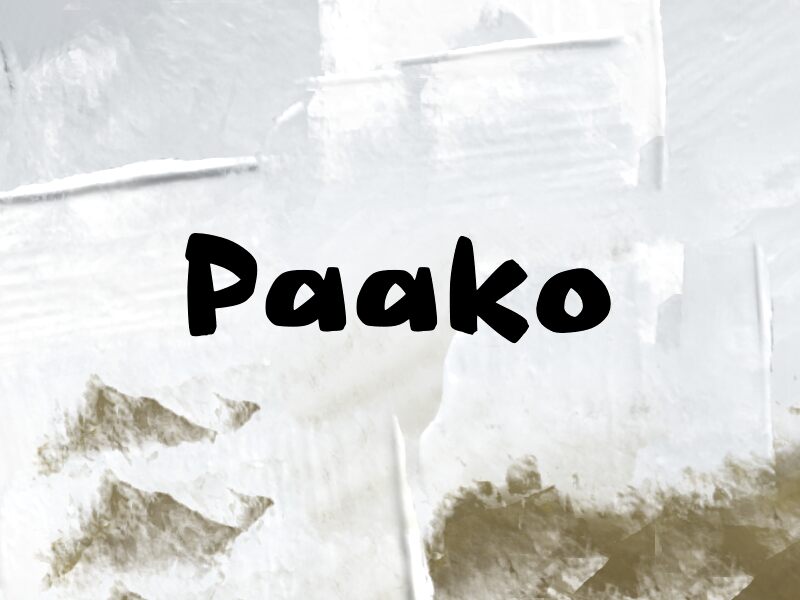
Paako font is a fancy, informal, and relaxed font by the designer wep. This is a free font, so you can download and implement it instantly in your projects to test its full potential. The font bears a friendly and approachable design in modern style to offer maximum versatility in your design works. Each displayed character is neat, organic, and modern.
Versatile is the key feature to describe Paako. That comes as no surprise when you see it works in various realizations of digital and print designs. Use it in blogs, social media posts, websites, apps, games, posters, covers, prints, t-shirts, any branding project, and marketing materials.
Paako is a unique free font designed to add a creative touch to your projects. With its distinctive style, this font is perfect for both personal and commercial use. Whether you're designing a logo, creating advertisements, or crafting invitations, Paako offers flexibility and charm that can elevate your work to the next level.